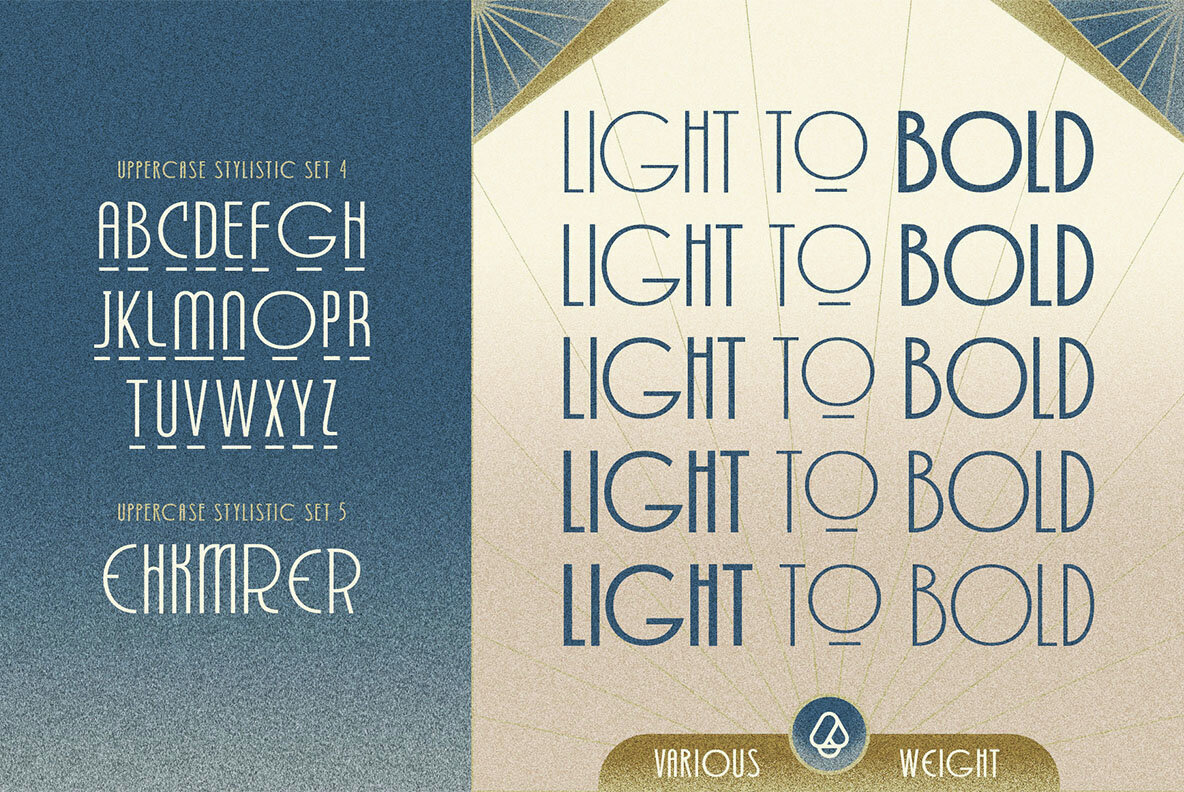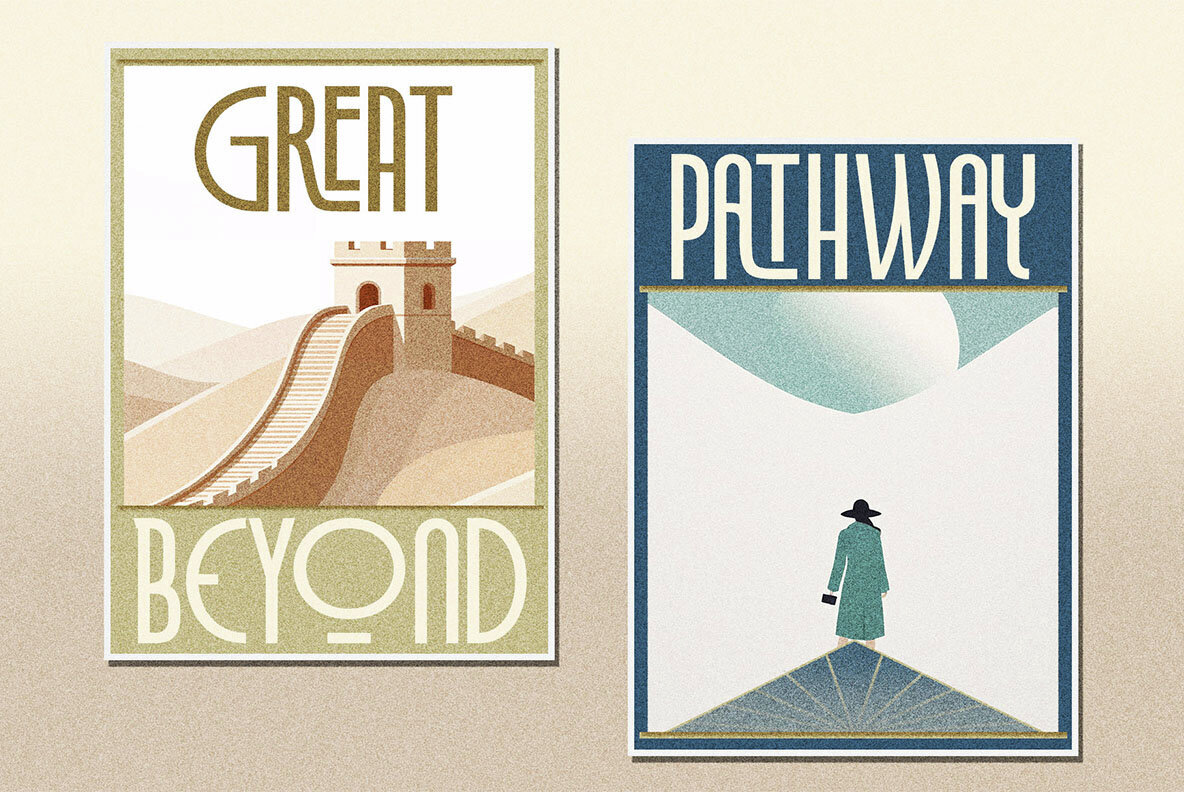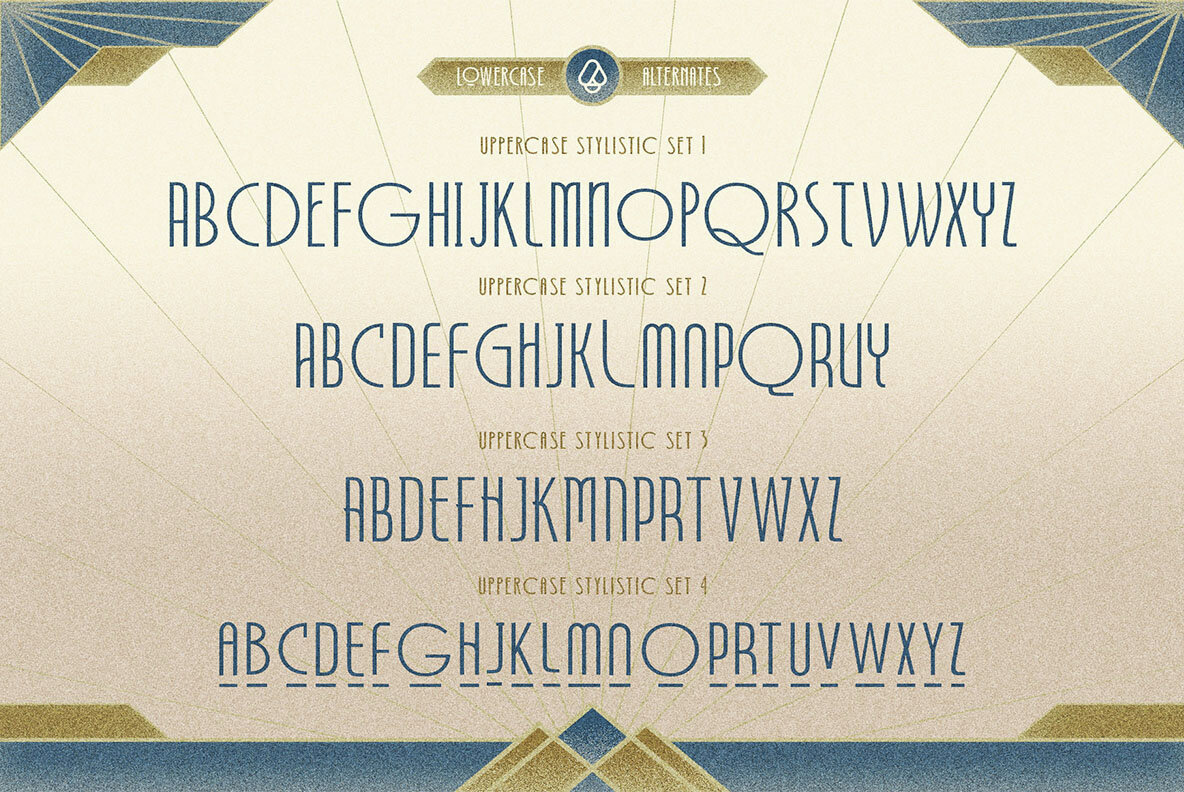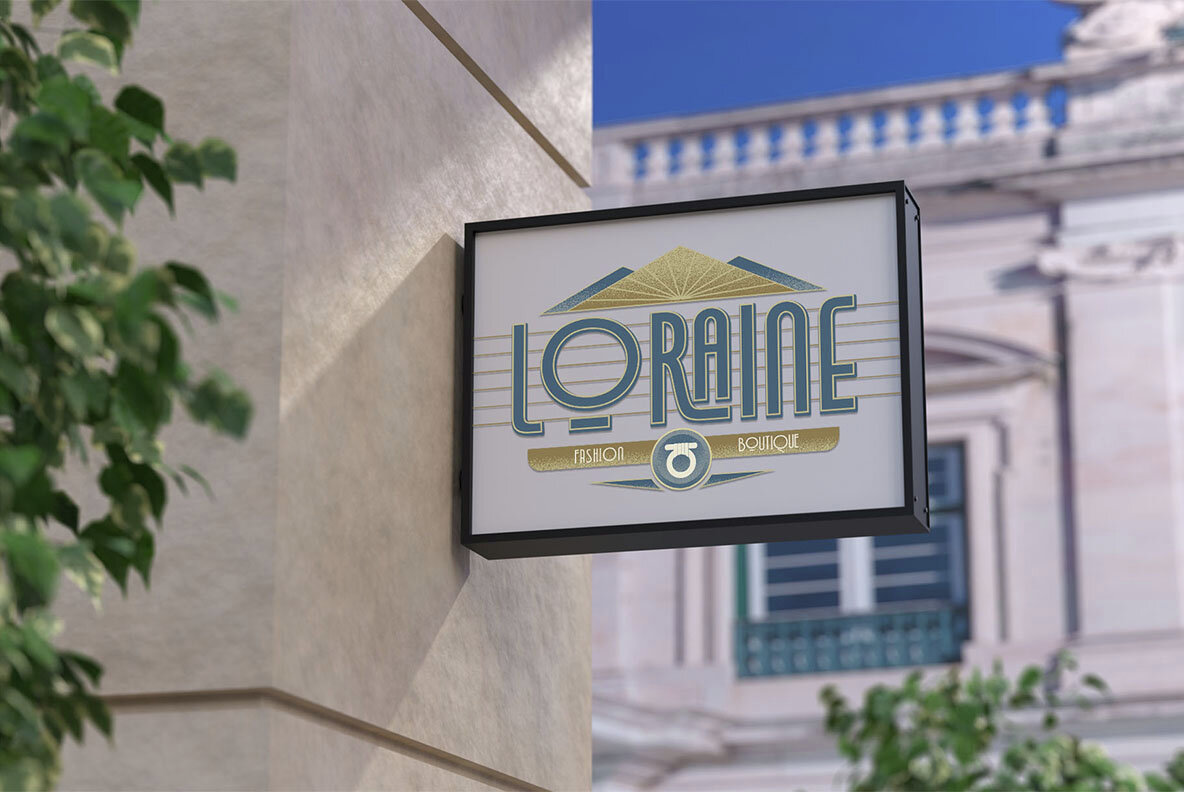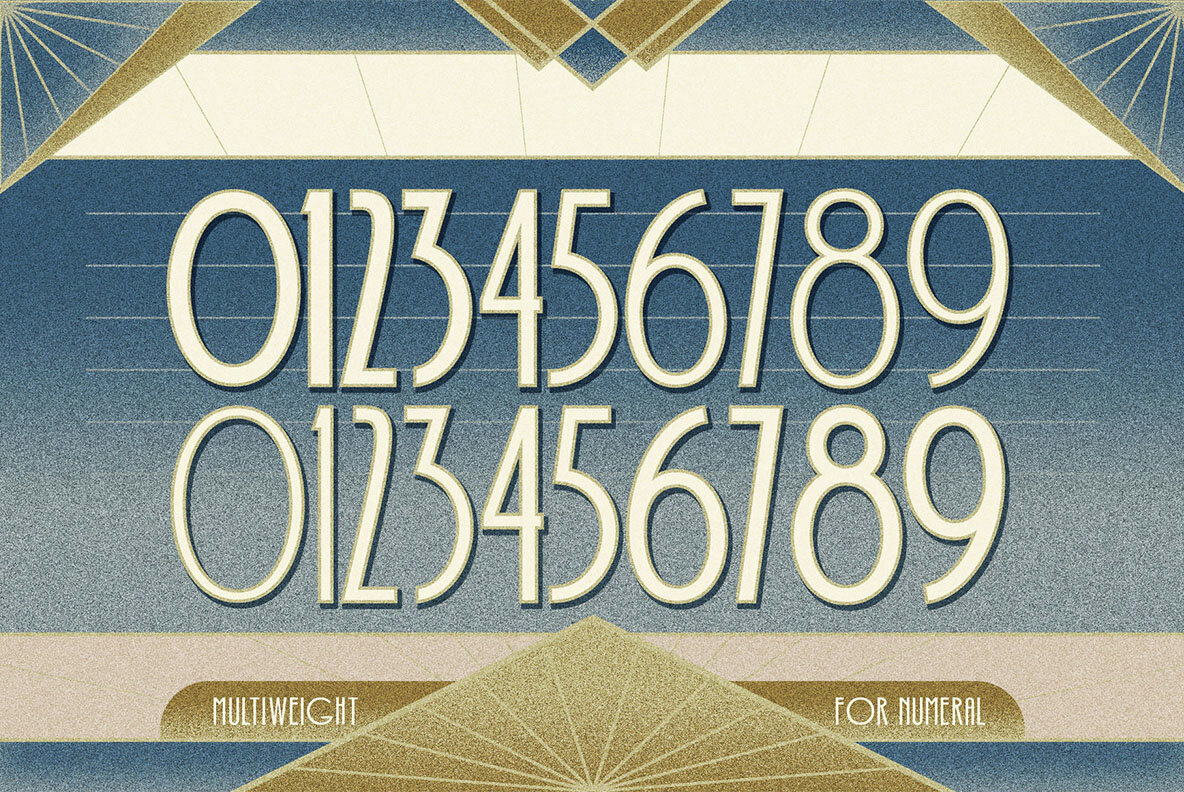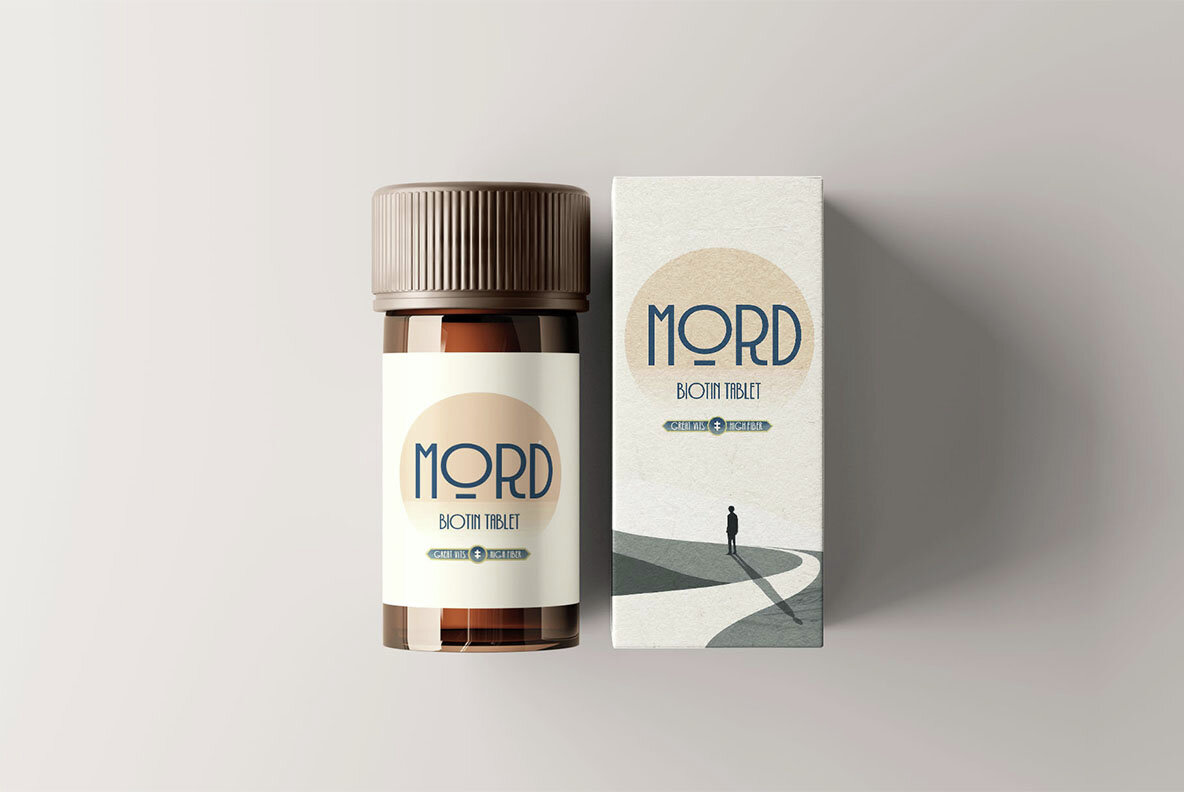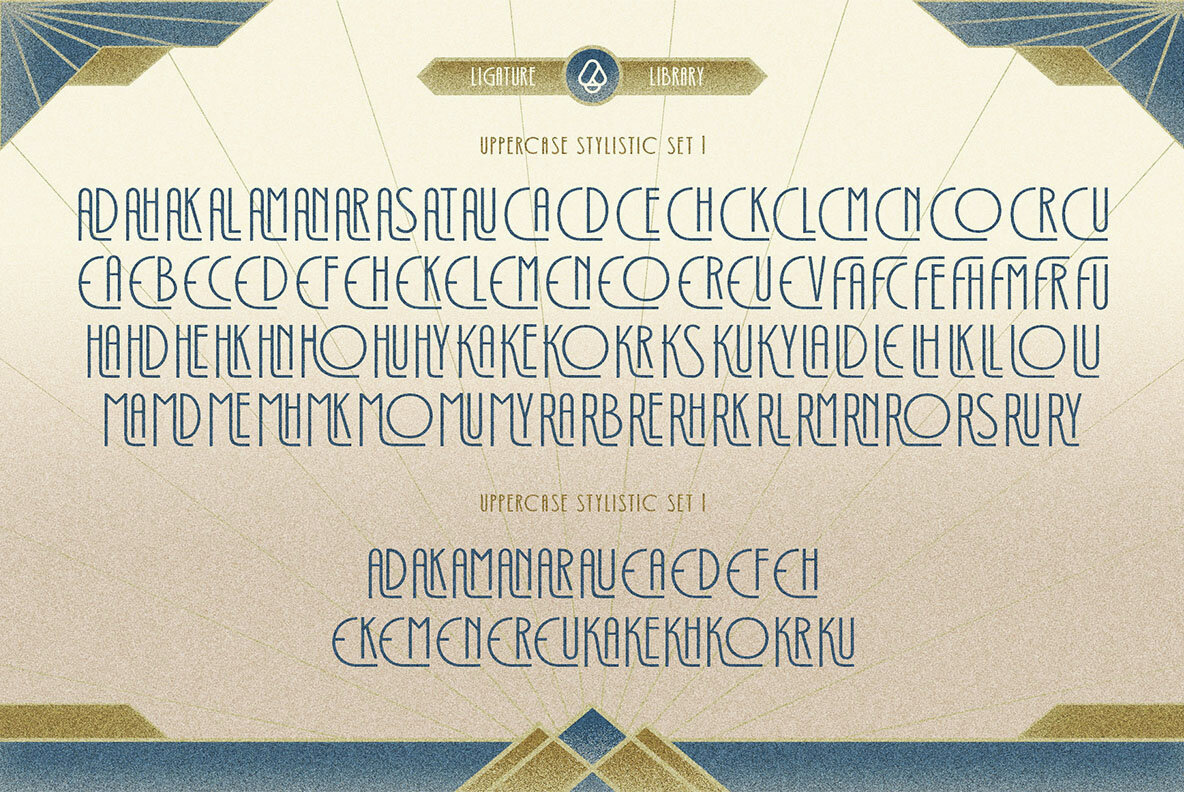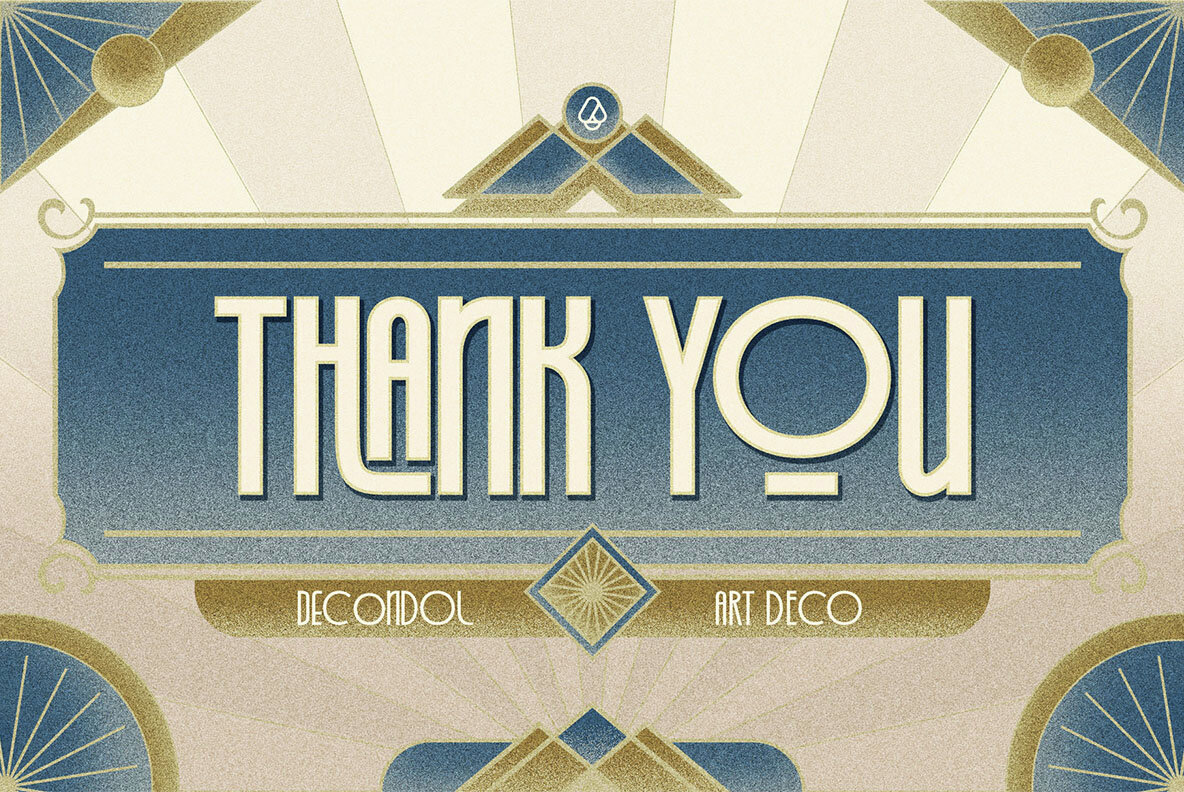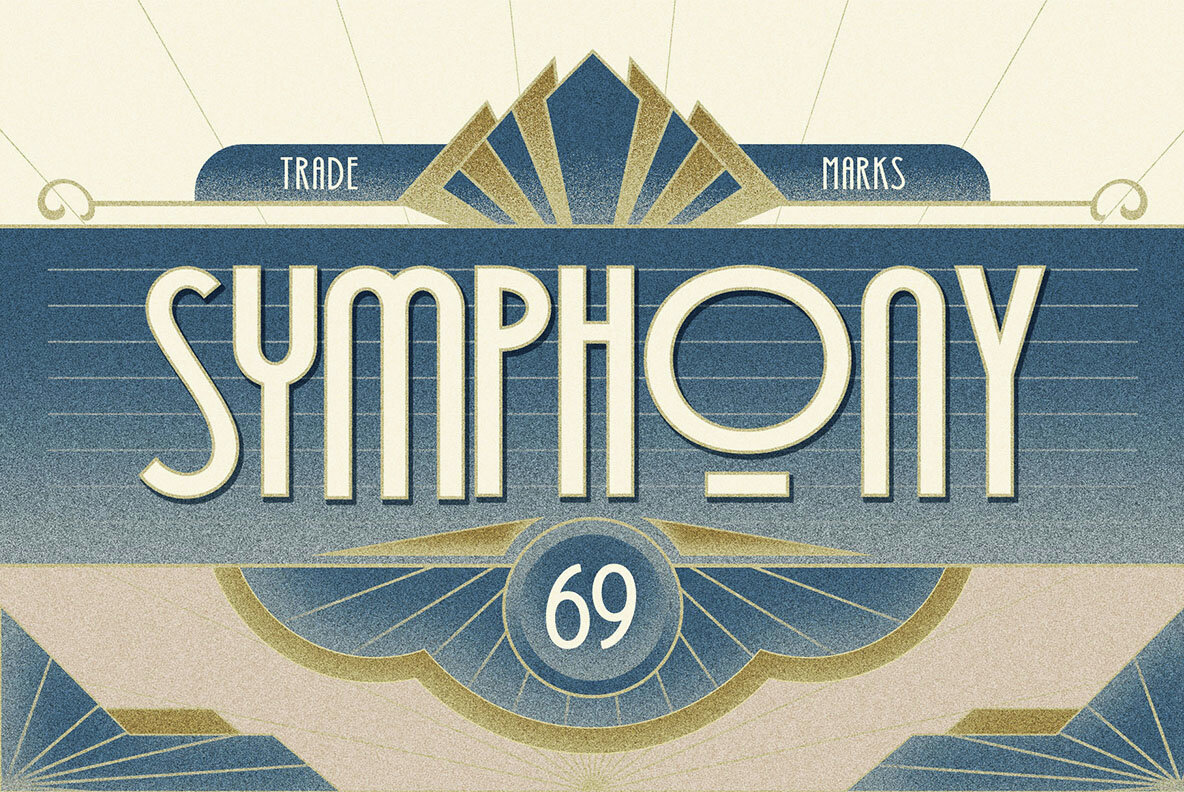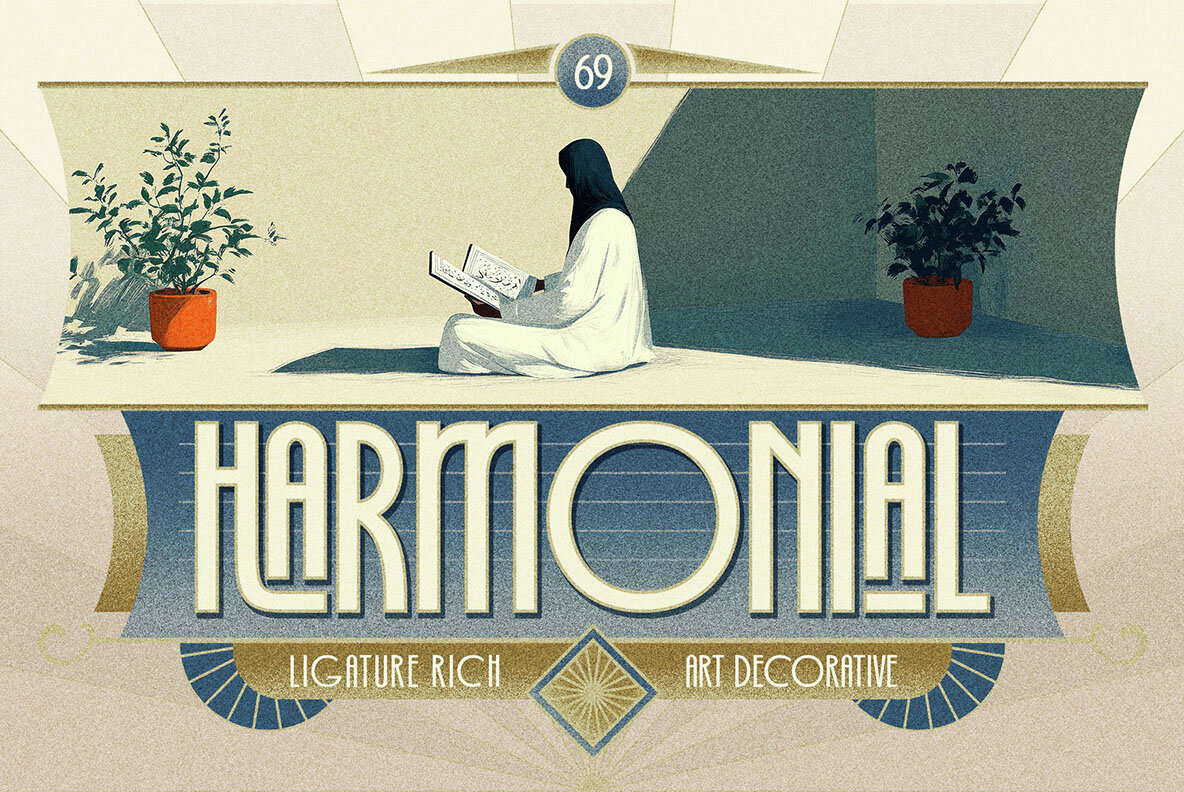
Decondol Font
expand_font Decondol Font Craft timeless elegance with Decondol Art Deco Typeface. Perfect for branding, editorial, and luxury design projects. Art Deco,Deco,Metropolis,Gatsby,Vintage,Art Nouveau,1920s,Luxurious,Ornate,Old Style Explore Exceptional Fonts for Digital and Traditional Media Fontpath offers a large variety of fonts for every designer, all at affordable prices and in multiple formats. Browse our best in class fonts today for all your creative needs, you can find everything you need right here at our site! Fonts,sans,sans serif,retro,script,decorative,title,FontPath 20140312040223 Fontpath offers 200,000+ of the most professional fonts found online, start downloading today! Real-Time Font Discovery at Fontpath